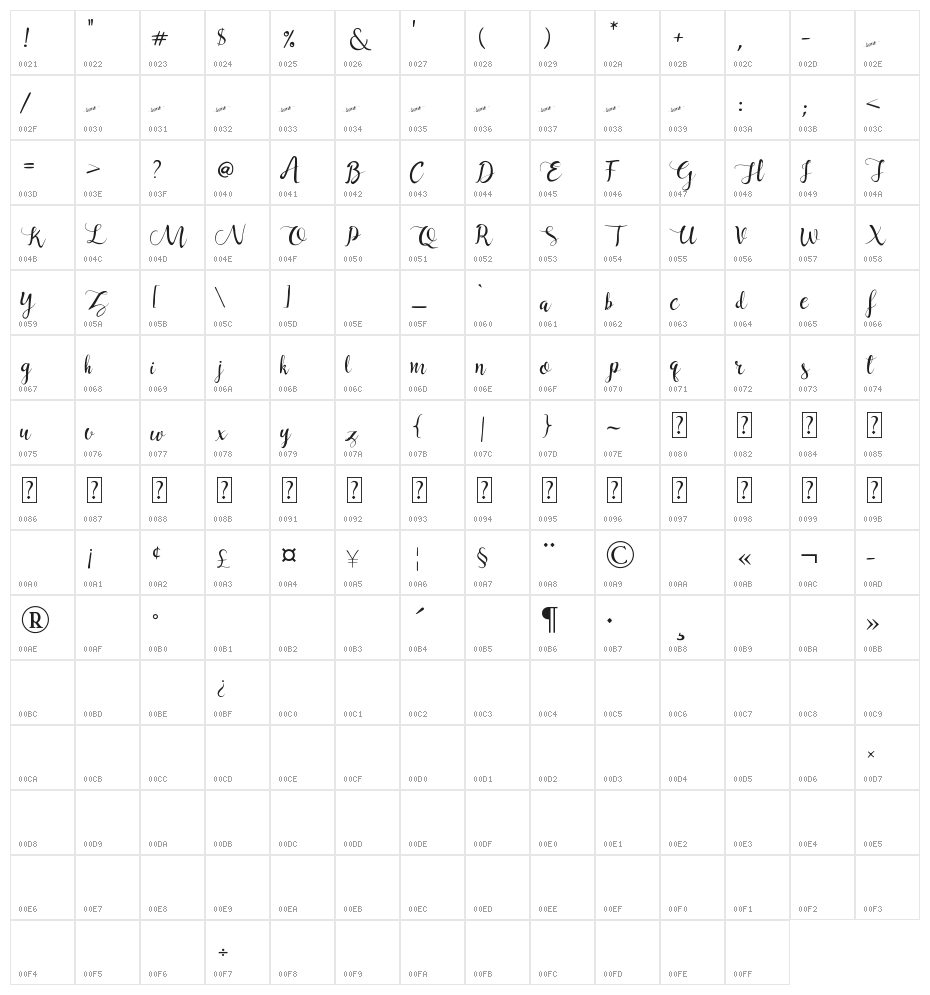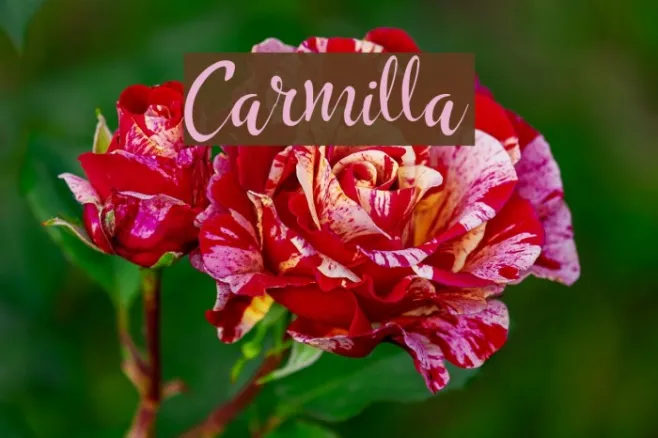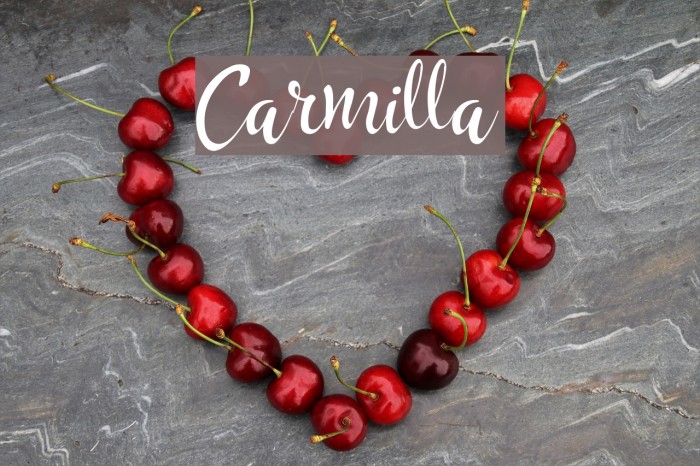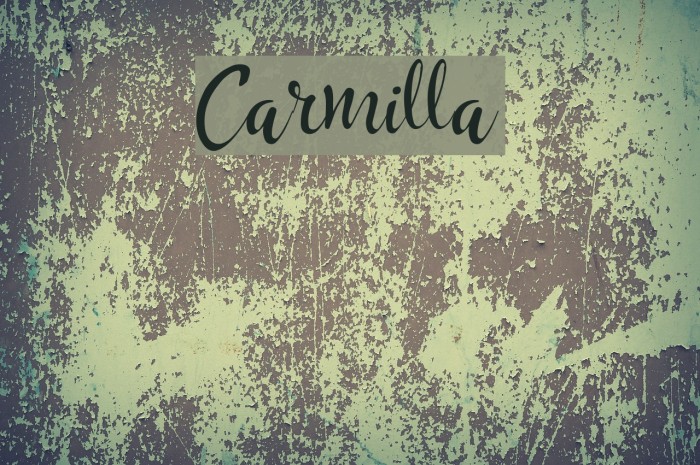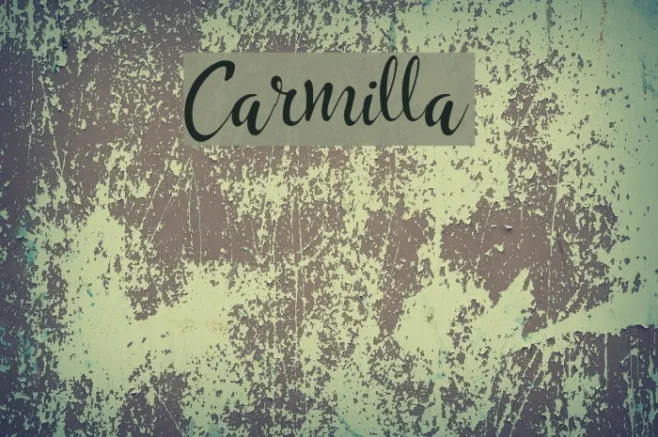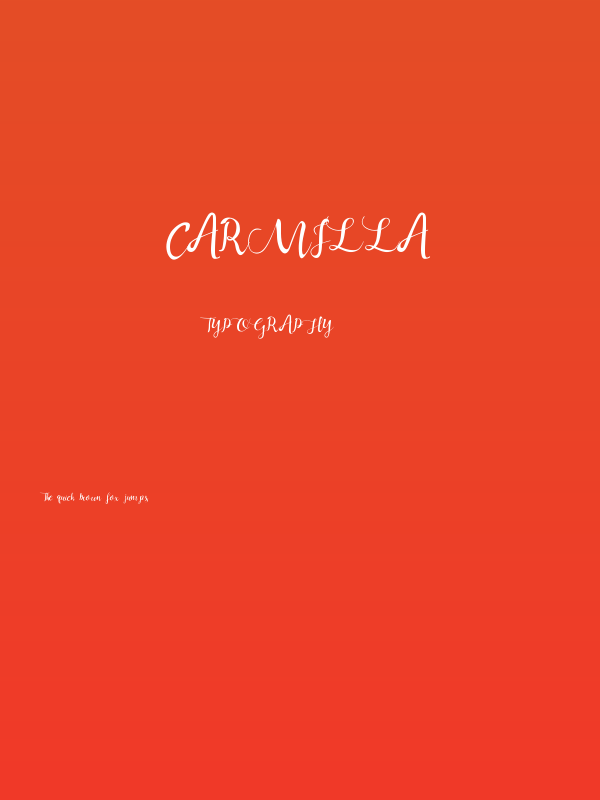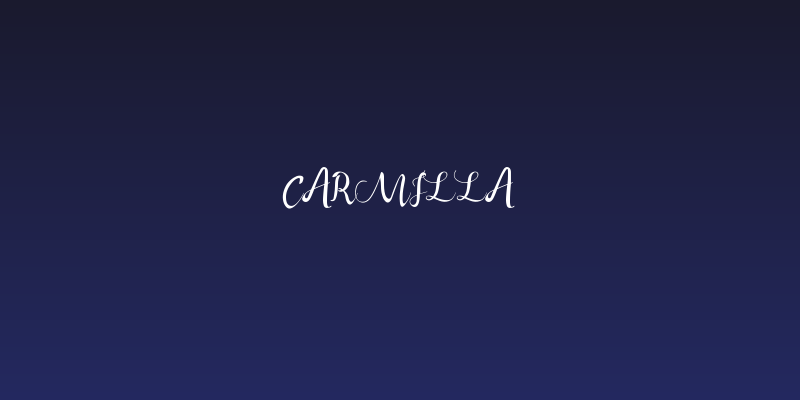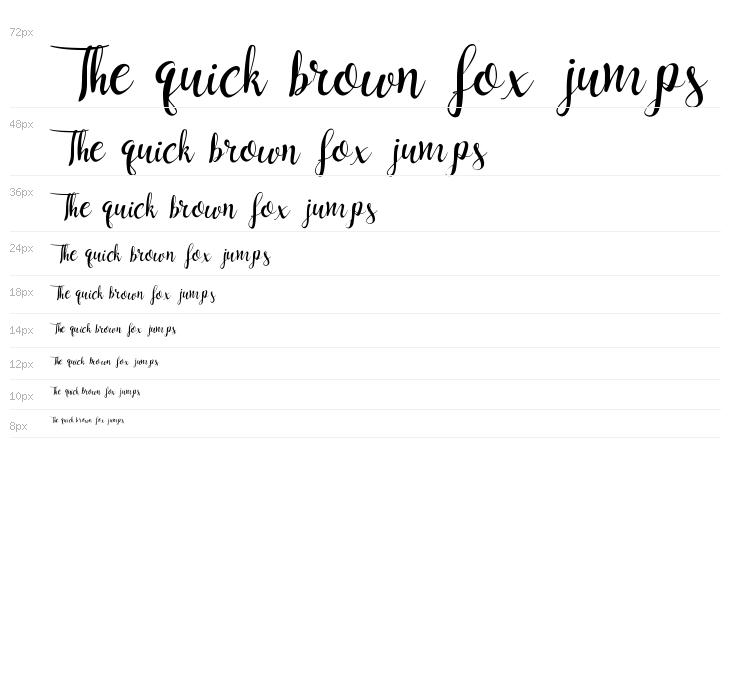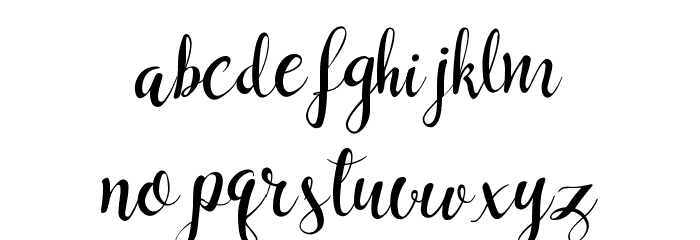
Carmilla Font
Carmilla Description
This elegant script font features flowing, interconnected letters with a calligraphic style. The uppercase letters are ornate and decorative, with sweeping curves and flourishes that add a touch of sophistication. The lowercase letters maintain a consistent style, offering a smooth and fluid appearance. The font includes a variety of special characters, enhancing its versatility for creative projects. Its design is both artistic and legible, making it suitable for a range of applications where a touch of elegance is desired.
| Proposed Projects | Ideal for wedding invitations, greeting cards, branding, and elegant logo designs. |